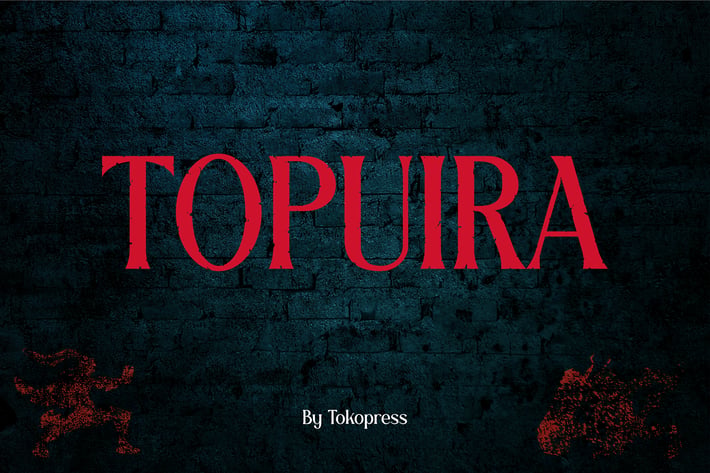
Gaming Font - Topuira
TOPUIRA – Adventure & Game Display Font
TOPUIRA is a bold cinematic display font crafted for storytelling that demands strength and drama. Designed with high contrast, extended serifs, and sharp edge accents, it channels the powerful energy of fantasy movie titles and game covers. The font’s grandiose presence and tall proportions make it the ideal headline-grabber—perfect for narratives of battle, bravery, or mythology.
Whether you’re creating dark fantasy posters, RPG game UI, or theatrical branding, TOPUIRA’s expressive flair makes every word feel heroic. Its structure blends classical serif traditions with modern cinematic drama, giving it both gravitas and excitement.
From battle cries to game launches, TOPUIRA gives your design a voice that commands attention. Its bold, adventurous tone is perfect for epic-themed movie posters, book covers, trading card games, board game packaging, or heavy metal album art.
Need to forge a logo that feels fierce and noble? Or make a headline that feels like the title of an RPG saga? TOPUIRA answers the call with visual impact and narrative strength. Let every glyph shout valor, tension, and destiny.
✦✦ Key Features ✦✦
Why Designers Choose TOPUIRA:
- Cinematic proportions with bold, striking weight
- Epic energy for fantasy or action-related titles
- Decorative flares and extended serif terminals
- Built to grab attention in both digital and print worlds
- Fantasy book covers and movie titles
- Tabletop or video game packaging
- Poster art, editorial covers, and banners
- Rock/metal music branding or streaming thumbnails
- Role-playing character sheets or dungeon maps